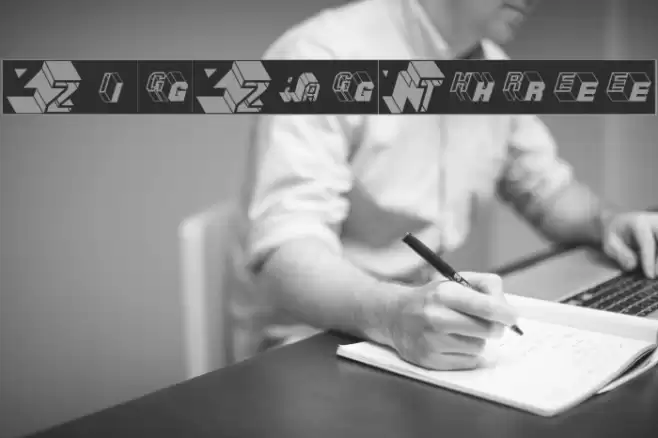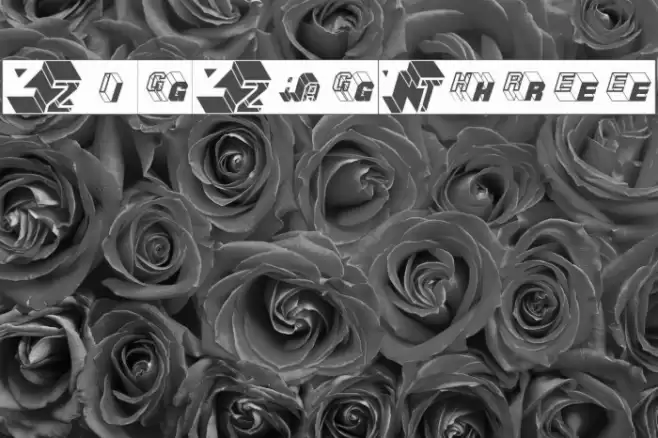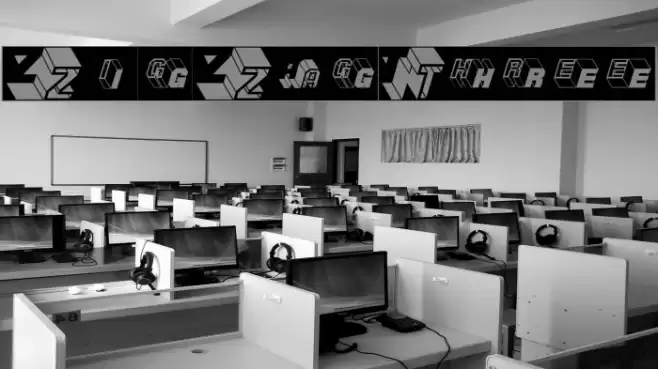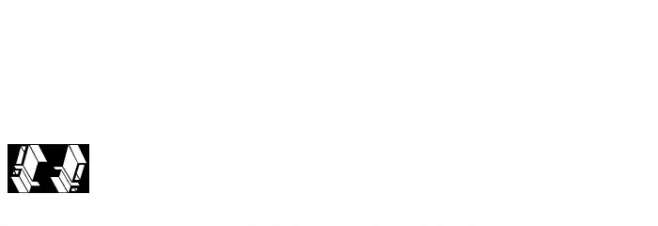
ZigZagThree Font
ZigZagThree Description
This font features a bold, geometric design with a three-dimensional zigzag pattern that creates a sense of depth and movement. Each character is constructed with sharp angles and clean lines, giving it a modern and dynamic appearance. The uppercase and lowercase letters maintain a consistent style, while the numbers and special characters seamlessly integrate into the overall design. The font's unique structure makes it stand out, offering a visually striking option for creative projects.
A bold, geometric font with a 3D zigzag pattern, offering a modern and dynamic look from Uncategorized fonts.
- Proposed Projects: Ideal for branding, posters, album covers, and any project requiring a bold, eye-catching typeface.